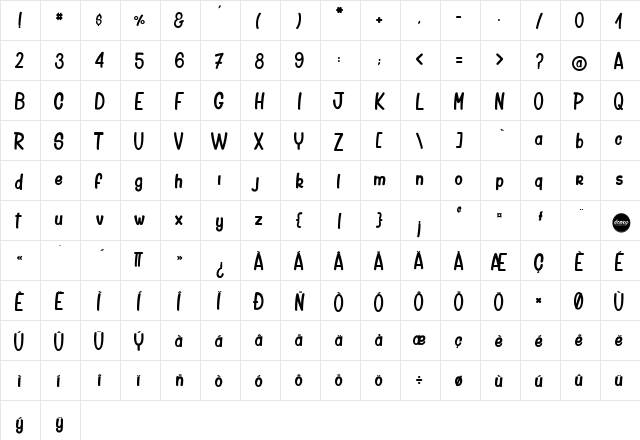
CAMELTOE kalypse Regular
| Foundry | dcoxy Medina Gregory |
| Designer | dcoxy Medina Gregory |
Design Context for CAMELTOE kalypse Typeface
CAMELTOE kalypse is a composed and adaptable typeface that performs quietly and consistently across a wide range of design contexts.